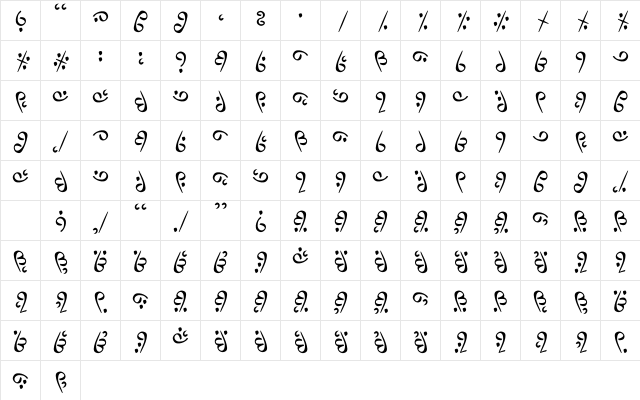
Drow Rounded
| Style | Rounded |
| Foundry | Urhixidur Fonts |
| Designer | Daniel U. Thibault |
Design Context for Drow Typeface
Drow softens its letterforms with rounded terminals, giving it an approachable, friendly quality that works well in consumer-facing and digital contexts.